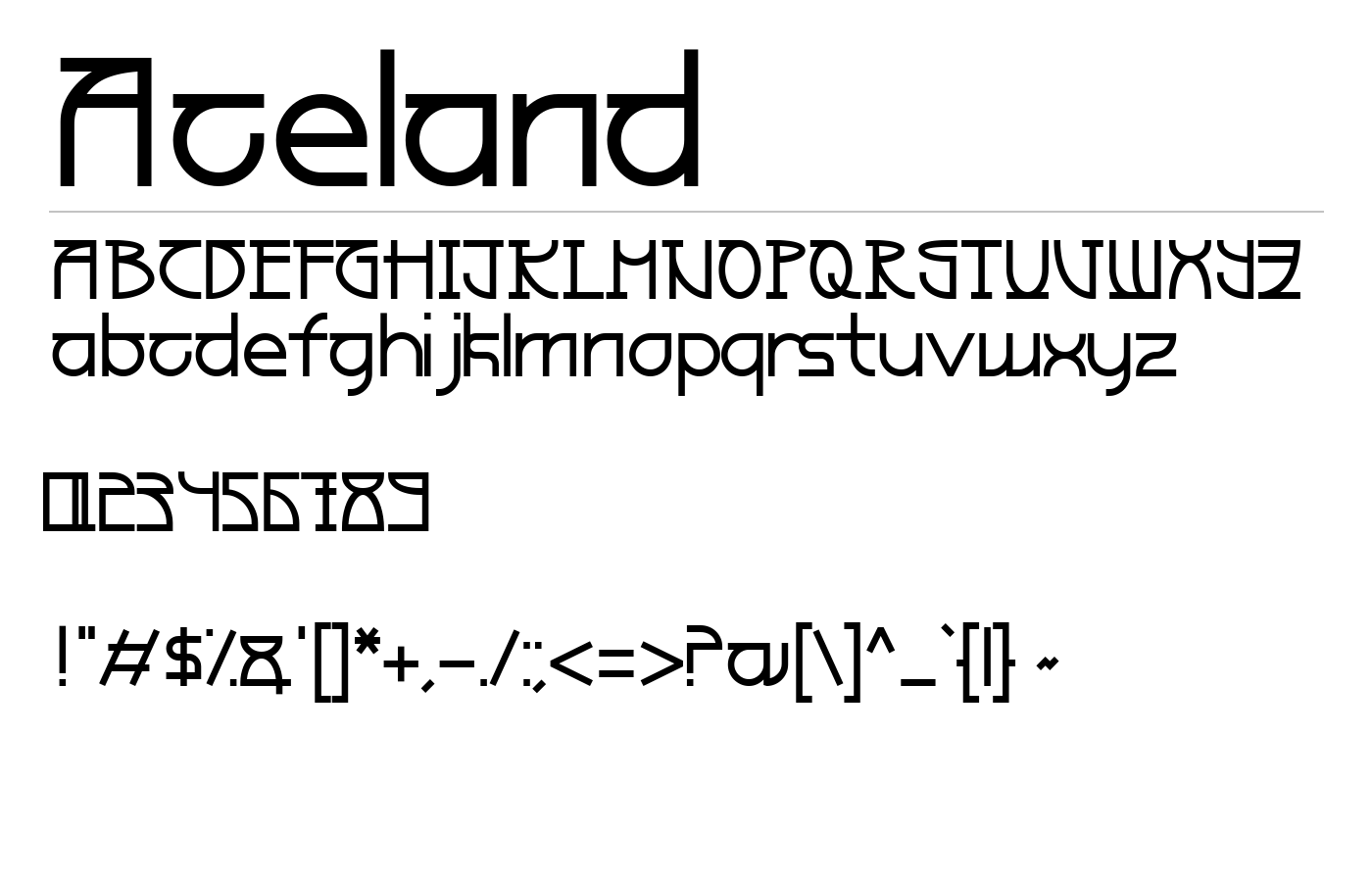
Aceland is a unique sans serif font with a modern yet slightly ornamental style, featuring narrow proportions and a consistent medium weight. Its distinct geometric shapes and subtle angular details give it a futuristic and artistic personality, making it ideal for bold headlines, logos, and creative branding projects that seek a contemporary and sophisticated edge. This font works best where a strong visual statement and individuality are desired, especially in design contexts focused on innovation and style.
Aceland Font